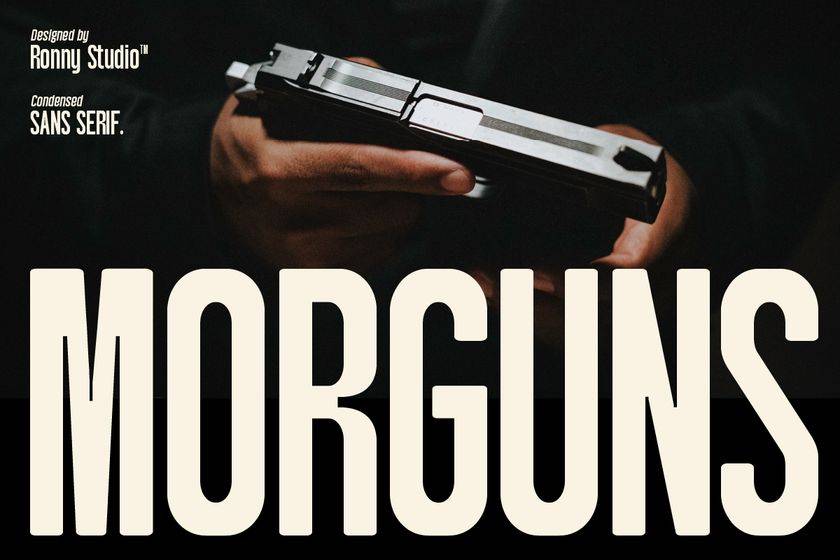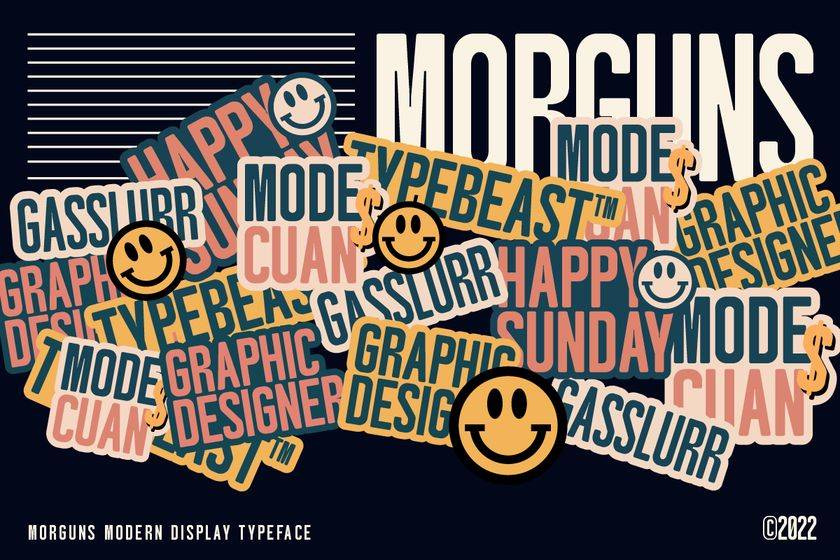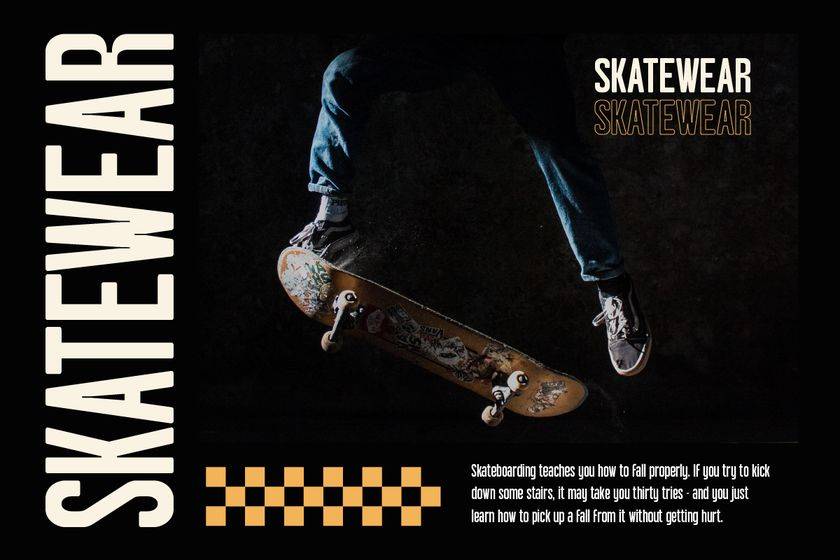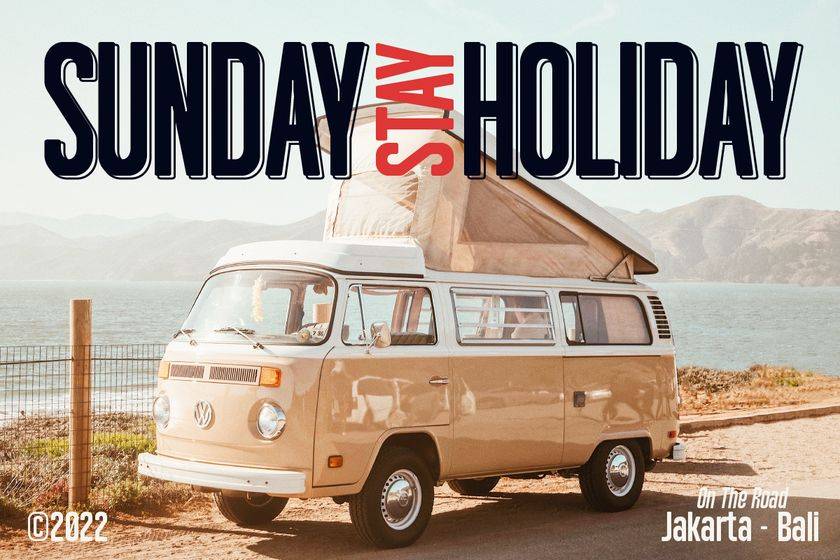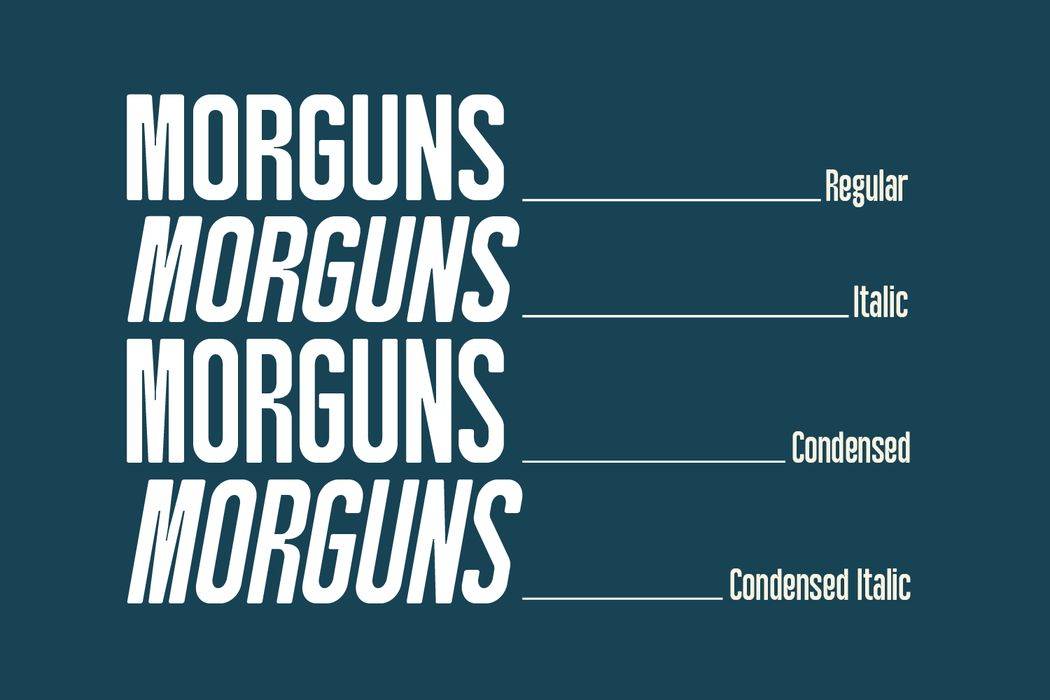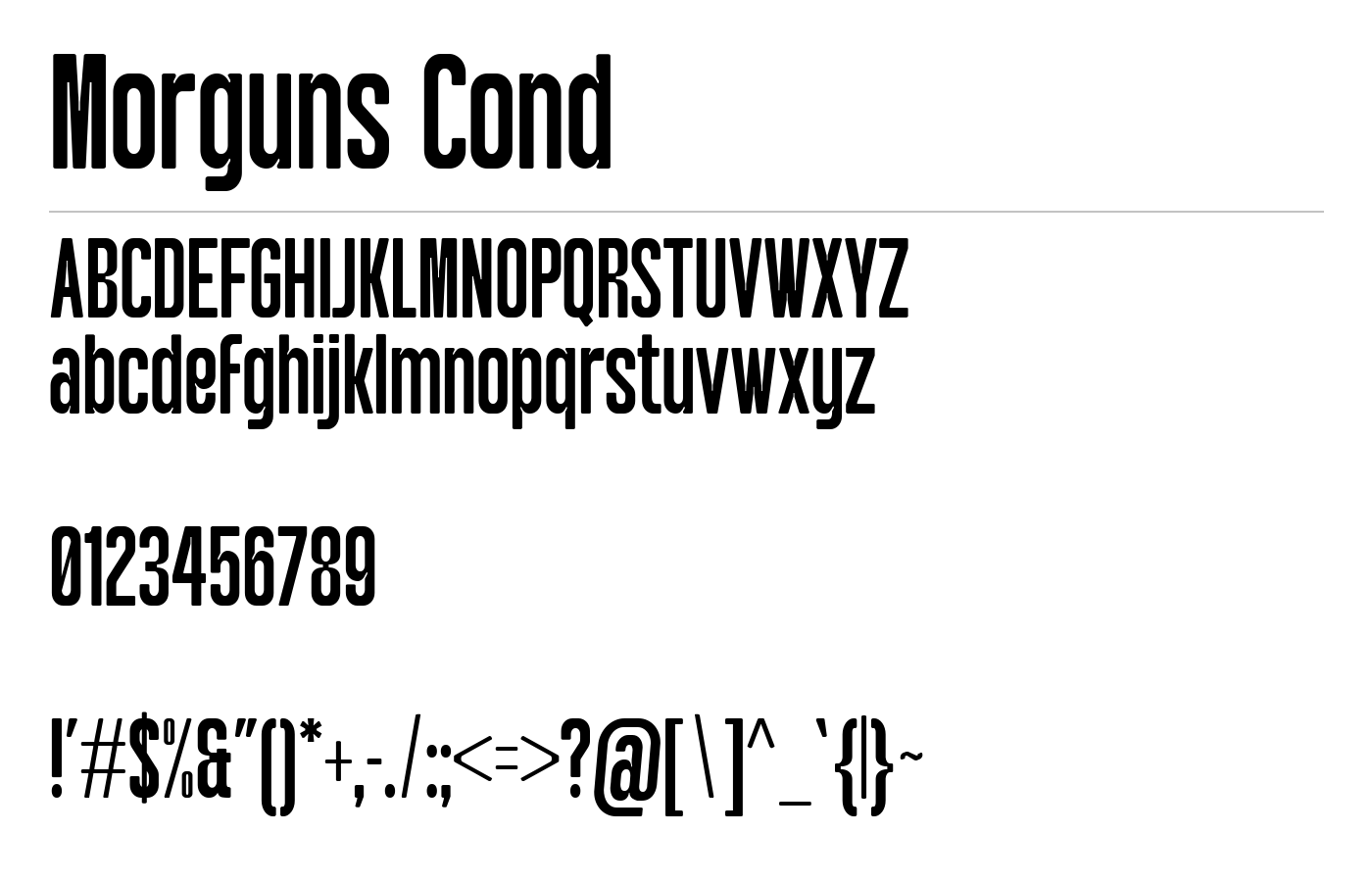
Morguns Cond is a bold, condensed sans-serif font with a tall x-height and strong vertical emphasis, making it highly legible and impactful. Its clean and modern style, combined with tight spacing and straightforward letterforms, gives it a confident and contemporary feel, ideal for headlines, logos, and branding that need a striking, professional presence. This font works best where space is limited but a powerful visual statement is needed.
Morguns Font
About Morguns Font
| Font family | Morguns Font |
| Designer | Rony Rizki Jaya |